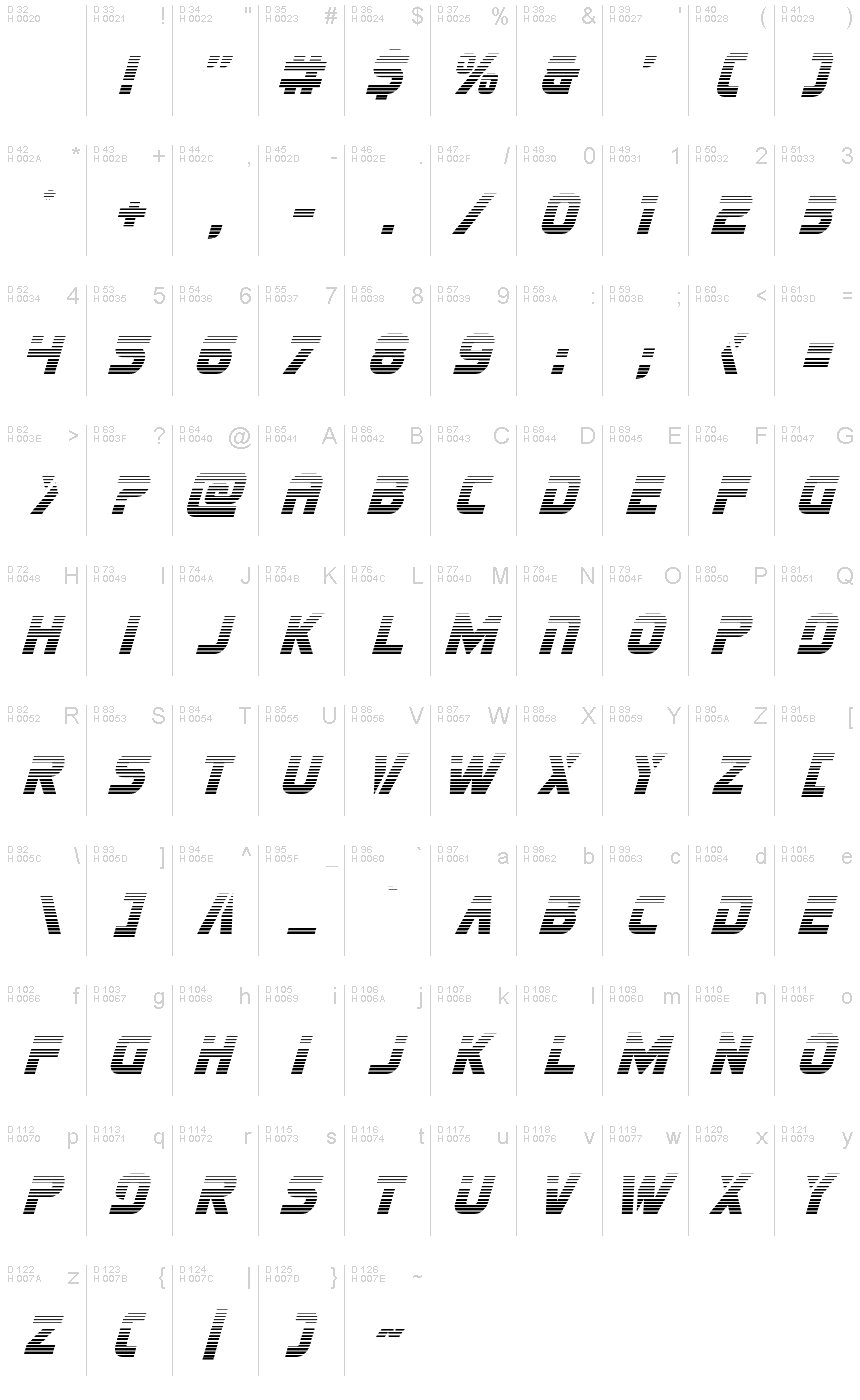
Mission: Danger Gradient Ital
Looking for a font that boldly goes where no typeface has gone before? Meet Mission: Danger Gradient Italic. Part of the Mission: Danger font family from Iconian Fonts, this display typeface is perfect for futuristic projects that require a touch of danger. With its bold weight and gradient italic style, it's ideal for creating attention-grabbing headlines or logos. Whether you're designing a sci-fi movie poster or a cutting-edge tech website, Mission: Danger Gradient Italic will help you make an impact. So buckle up, because with this font, danger is just the beginning.